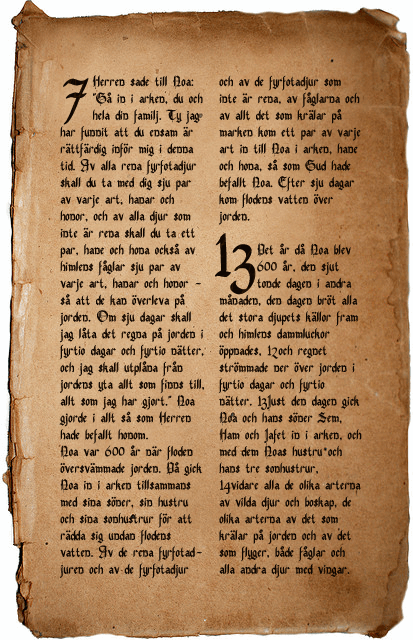
Free Pennybridge 1563 Font
Download and enjoy this free pennybridge 1563 font. Cool typeface to showcase your designs in a modern way. Font Space has created this amazing and beautiful typeface. This is absolutely beautiful font so you can easily make world-class designs.